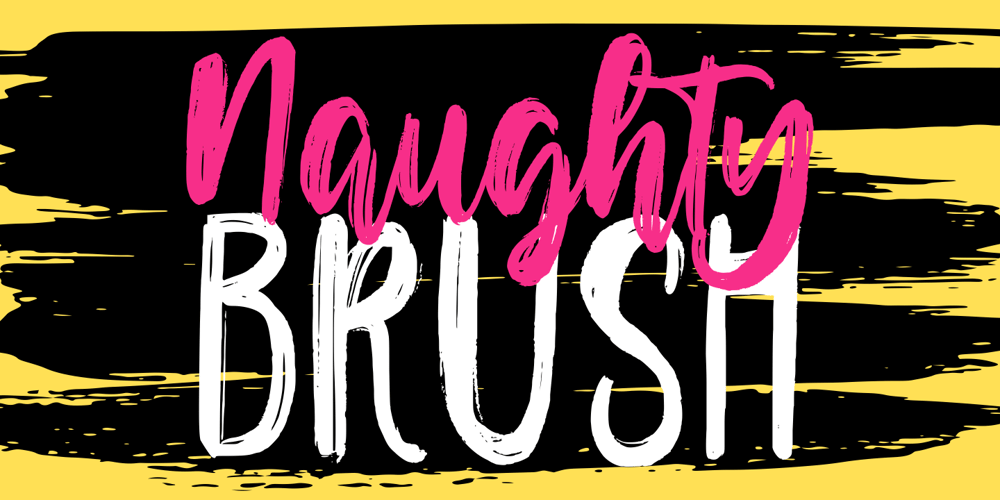
Naughty Brush Font Family was designed by Good Java and published by Good Java Studio. Naughty Brush contains 2 styles and family package options. Naughty Brush is a set of two fonts, featuring an upright caps and regular slant style, and also includes extra swashes.